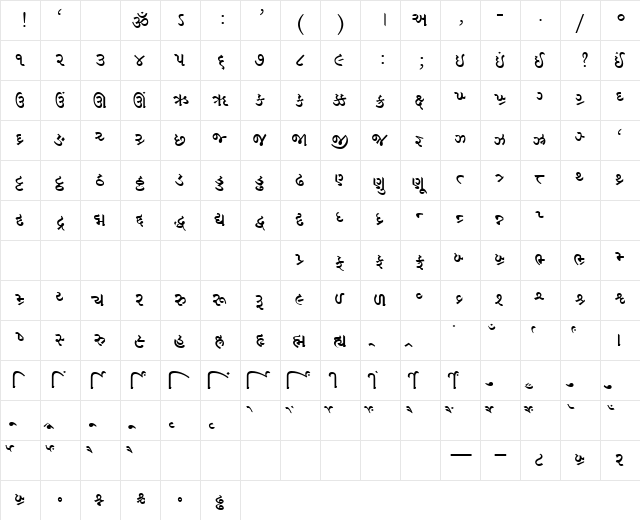
AkrutiGujKavita Bold
Design Context for AkrutiGujKavita Typeface
AkrutiGujKavita offers clean, dependable letterforms without strong stylistic allegiance, making it a practical choice for designers who need flexibility. Its bold stroke weight gives it real presence on the page.